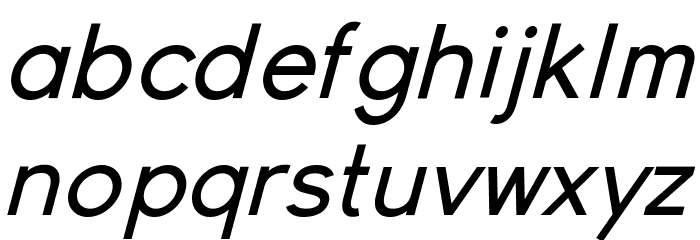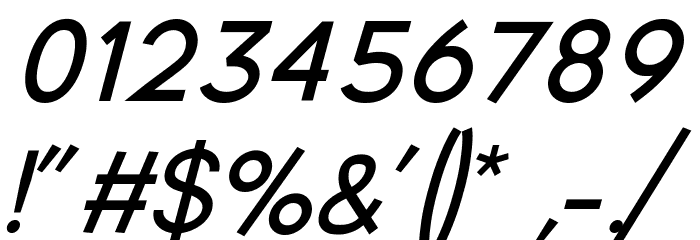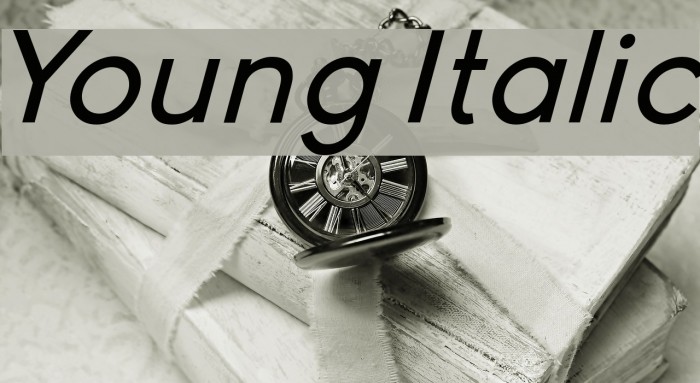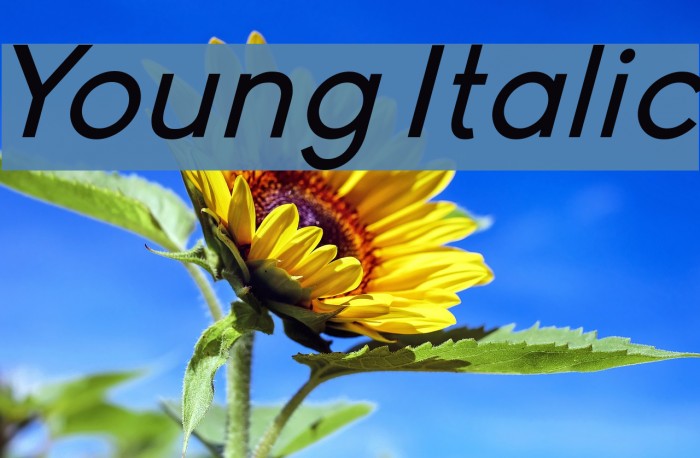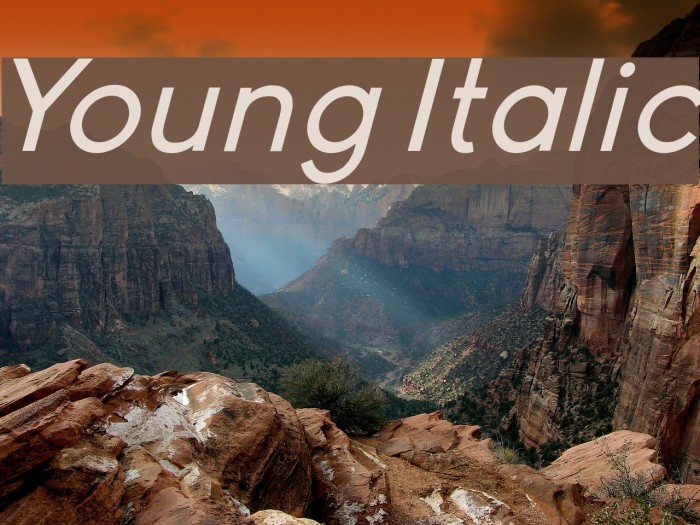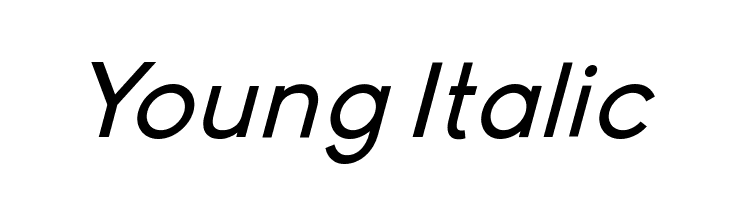
Young Italic Font
This font features a sleek and modern italic style, characterized by its clean lines and smooth curves. The letters are slightly slanted, giving a dynamic and forward-moving appearance. The uppercase and lowercase letters maintain a consistent style, with a slight variation in stroke width that adds subtle elegance. The numerals are clear and legible, matching the overall aesthetic of the alphabet. Special characters are well-integrated, maintaining the font's cohesive look. This font's design is versatile, suitable for a variety of applications where a modern and stylish impression is desired.
A sleek, modern italic font with clean lines and smooth curves.
- Proposed Projects: Ideal for branding, advertising, and editorial design projects.
- Use Case: Headlines, Logos, Editorial design